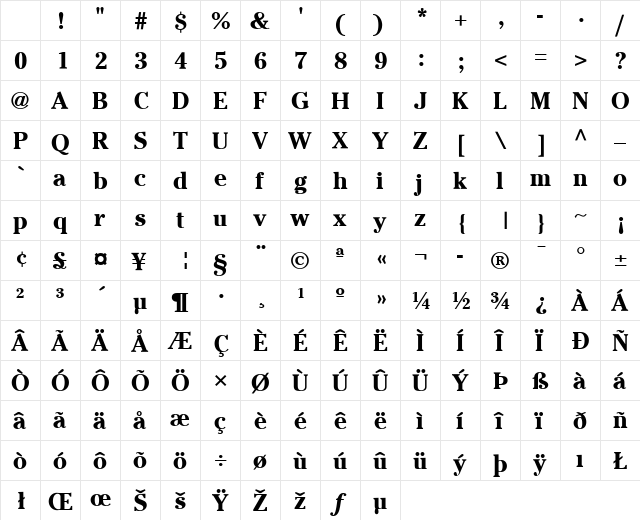
Cheltenham LT is a composed and adaptable typeface that performs quietly and consistently across a wide range of design contexts. Its bold stroke weight gives it real presence on the page.